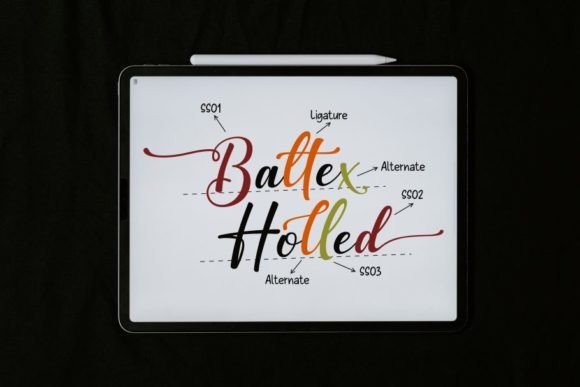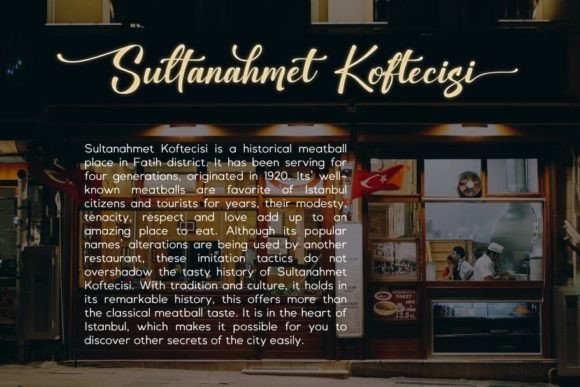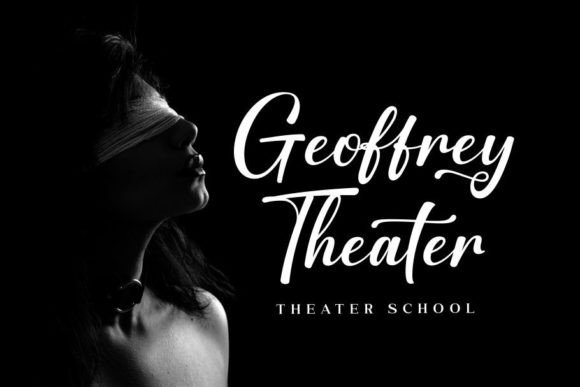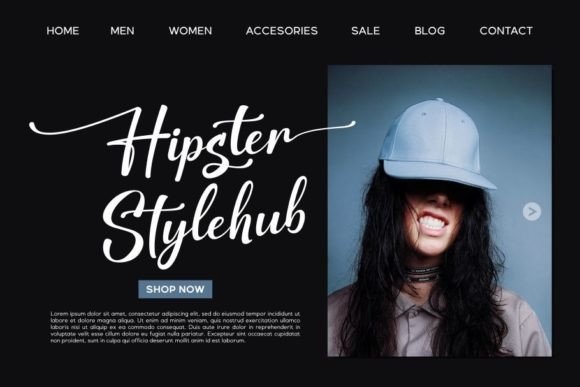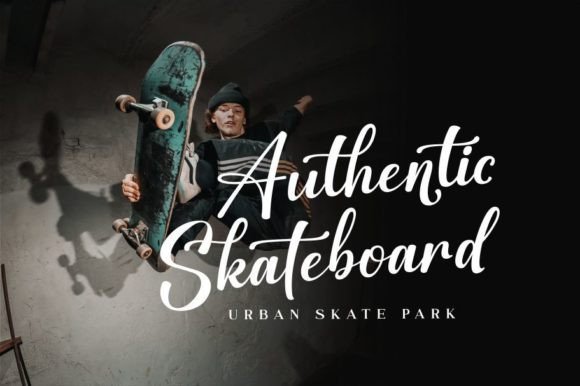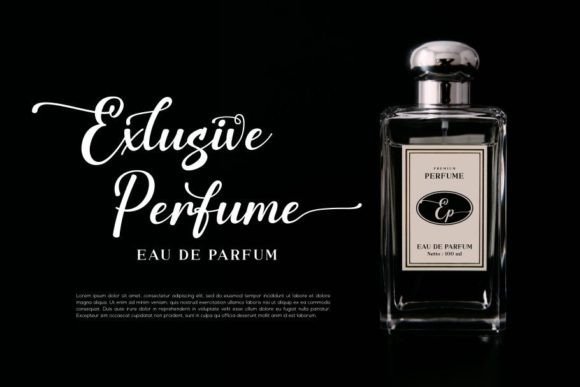
Introducing Baltex Holled Font: Elevate Your Designs with Modern Elegance
Are you a designer or crafter looking for a font that exudes modern elegance and sophistication? Look no further than Baltex Holled Font. This stunning calligraphy font is perfect for a wide range of design applications, from logos and titles to product packaging and social media posts.
What is Baltex Holled Font?
Baltex Holled Font is a beautifully crafted calligraphy font that boasts a modern and elegant style. Its unique and flowing script is perfect for adding a touch of sophistication to any design project. With its various alternate characters and swashes, this font offers endless possibilities for creative expression.
Key Features of Baltex Holled Font
- Modern and Elegant Style: Baltex Holled Font features a sleek and contemporary design that is sure to impress.
- Calligraphy Script: This font’s beautiful calligraphy script adds a touch of elegance and sophistication to any design.
- Various Alternate Characters: With multiple alternate characters to choose from, you can add unique touches to your designs.
- PUA Encoded: This font is PUA encoded, making it easy to access all glyphs and swashes.
- Versatile: Baltex Holled Font is perfect for a wide range of design applications, including logos, titles, headlines, product packaging, branding identity, advertisements, and social media posts.
Use Cases for Baltex Holled Font
Baltex Holled Font is an incredibly versatile font that can be used in a variety of design applications. Here are some ideas to get you started:
- Logo Design: Create a stunning logo for your business or brand with Baltex Holled Font.
- Title and Headline Design: Use this font to create eye-catching titles and headlines for your website, blog, or marketing materials.
- Product Packaging: Add a touch of elegance to your product packaging with Baltex Holled Font.
- Branding Identity: Establish a strong brand identity with this modern and elegant font.
- Advertisements: Use Baltex Holled Font to create eye-catching advertisements that grab attention.
- Social Media Posts: Elevate your social media posts with this beautiful calligraphy font.
Benefits of Using Baltex Holled Font
By using Baltex Holled Font, you can:
- Elevate Your Designs: Add a touch of modern elegance and sophistication to your designs.
- Stand Out from the Crowd: With its unique and flowing script, Baltex Holled Font is sure to make your designs stand out.
- Save Time: This font’s PUA encoding makes it easy to access all glyphs and swashes, saving you time and effort.
- Increase Brand Recognition: Establish a strong brand identity with Baltex Holled Font and increase brand recognition.
Baltex Holled Font is a stunning calligraphy font that offers modern elegance and sophistication. With its various alternate characters, swashes, and PUA encoding, this font is perfect for designers and crafters looking to elevate their designs. Whether you’re creating logos, titles, product packaging, or social media posts, Baltex Holled Font is sure to impress. So why wait? Download Baltex Holled Font today and take your designs to the next level!